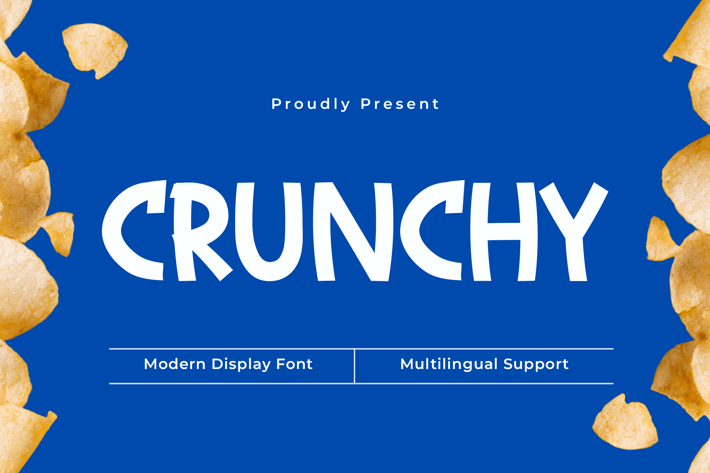
Crunchy – A Modern Display Font
Meet Crunchy, a modern display font that brings a fun and dynamic energy to your designs. With its bold shapes, quirky details, and lively personality, Crunchy is perfect for eye-catching headlines, creative branding, packaging, posters, social media graphics, and more.
Designed to stand out, this font combines a contemporary edge with a playful touch, making it ideal for projects that need a fresh and engaging look. Whether you're designing for a trendy brand, a fun event, or bold advertising, Crunchy delivers high-impact typography that captivates your audience.
Complete with uppercase and lowercase letters, numbers, punctuation, and multilingual support, Crunchy is a must-have for designers looking for a stylish yet versatile display font.